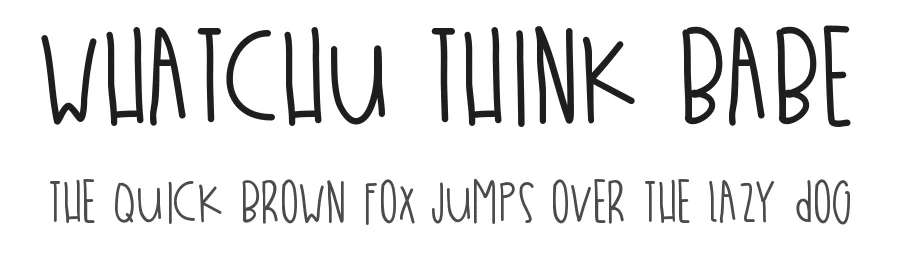
About Escapades Font
Escapades is a script & handwritten font designed by Des Gomez. It includes 103 glyphs, a medium weight, TTF (TrueType) format, and 107 languages. Escapades is free to download; check the license details on this page before commercial use. Script & handwritten fonts like Escapades work best for wedding invitations, greeting cards, signatures, and elegant branding.
Escapades Font is a script font that shines as a display or heading face. Pair it with a clean sans-serif or serif font for body text β the contrast creates a clear hierarchy while the two styles stay balanced and easy to read.
Escapades Font
by Des Gomez